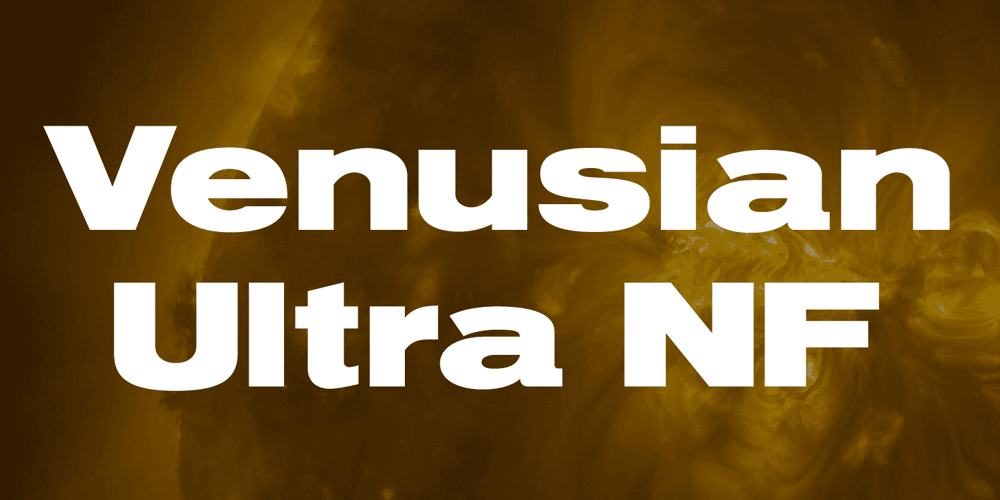
Venusian Ultra NF Font Family was designed by Nick Curtis and published by Nick’s Fonts. Venusian Ultra NF contains 1 styles and family package options. Based on the extrabold extended version of Venus, a typeface originally issued by Bauersche Giesserei from 1907 to 1927. Use it when you want to be heard loud and clear. Both versions support the Latin 1252, Central European 1250, Turkish 1254 and Baltic 1257 codepages.